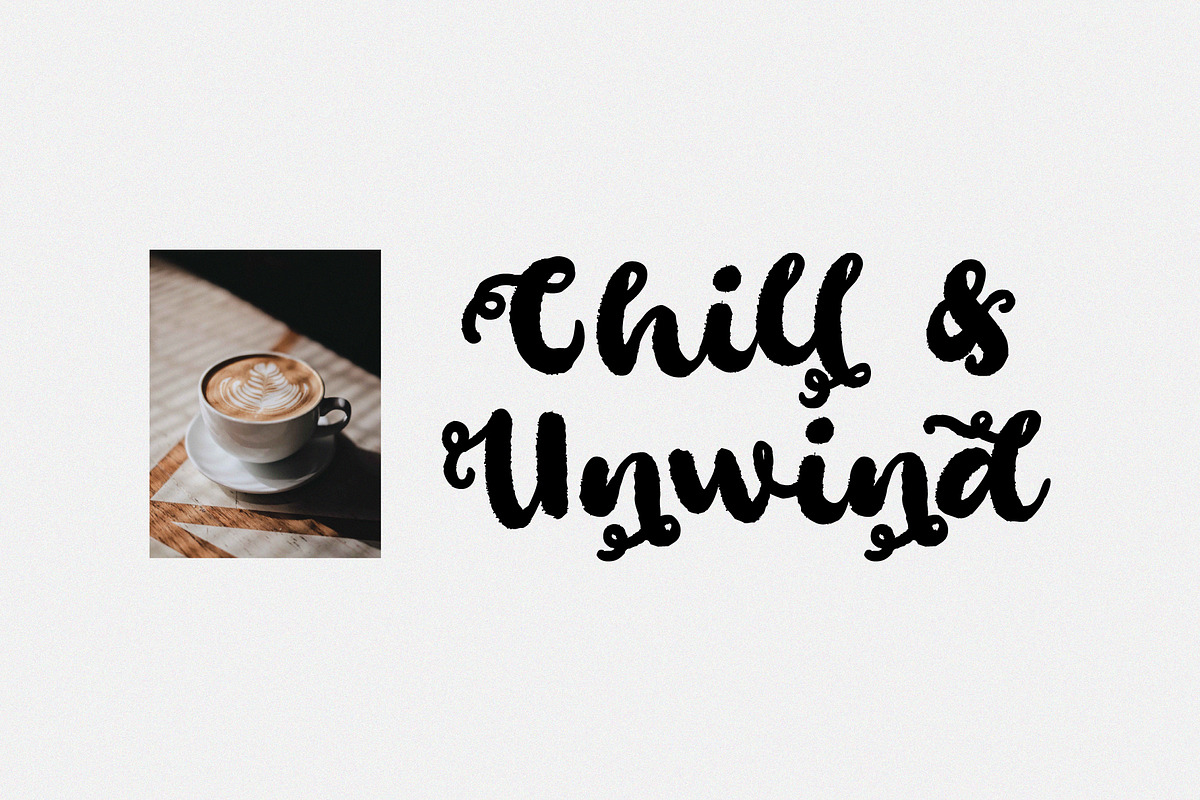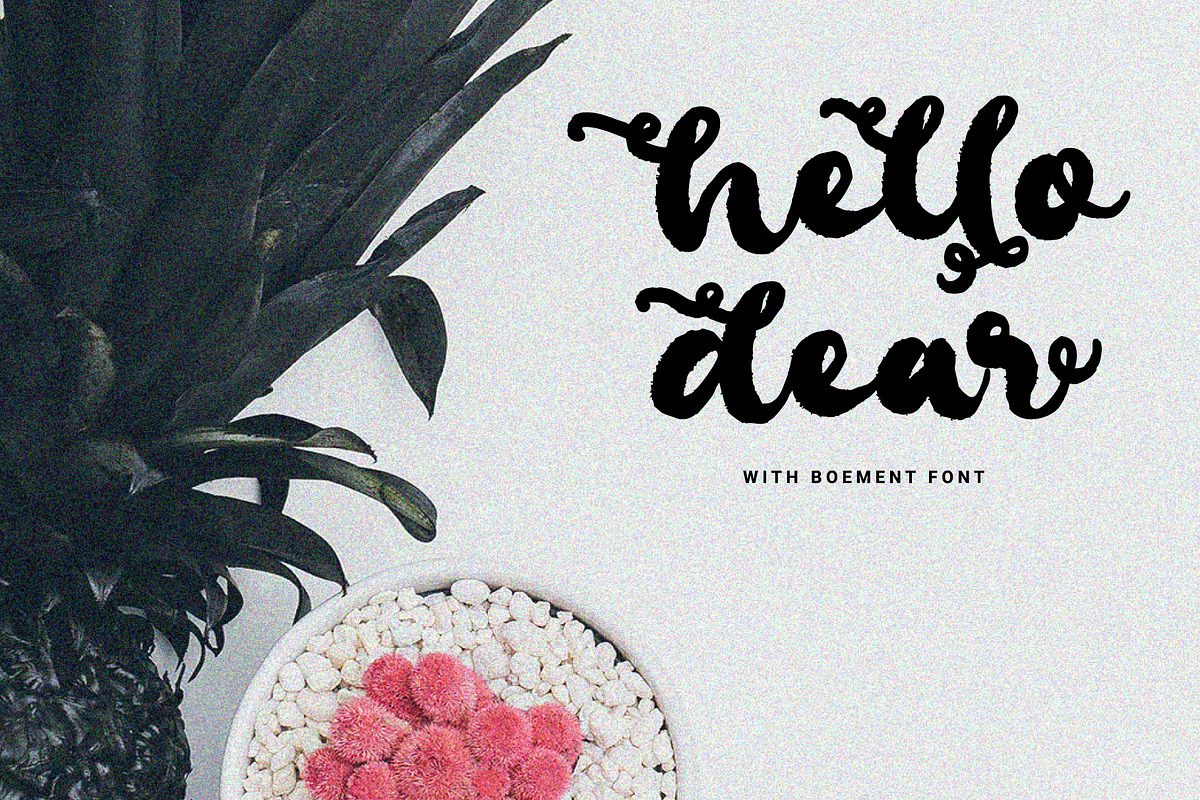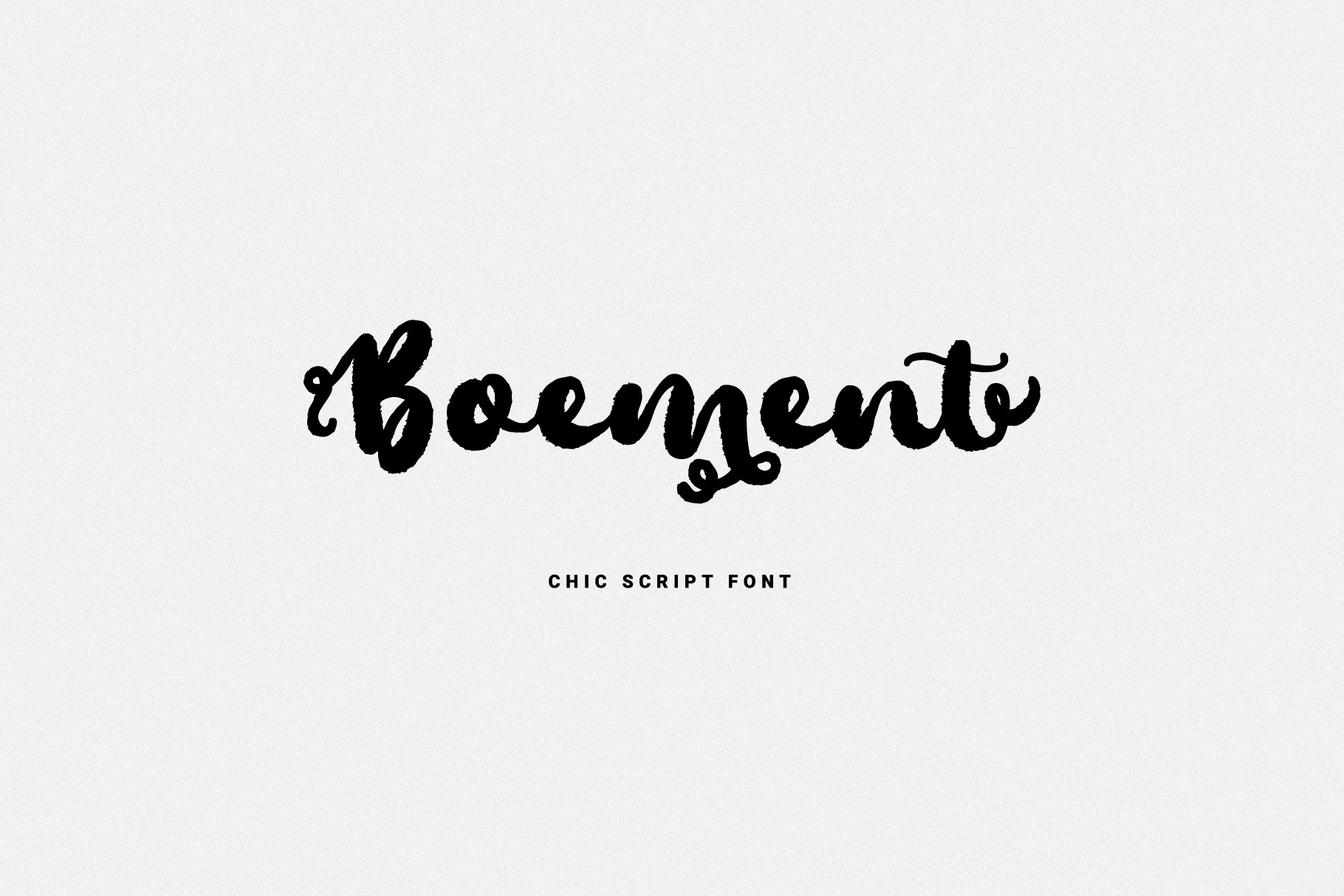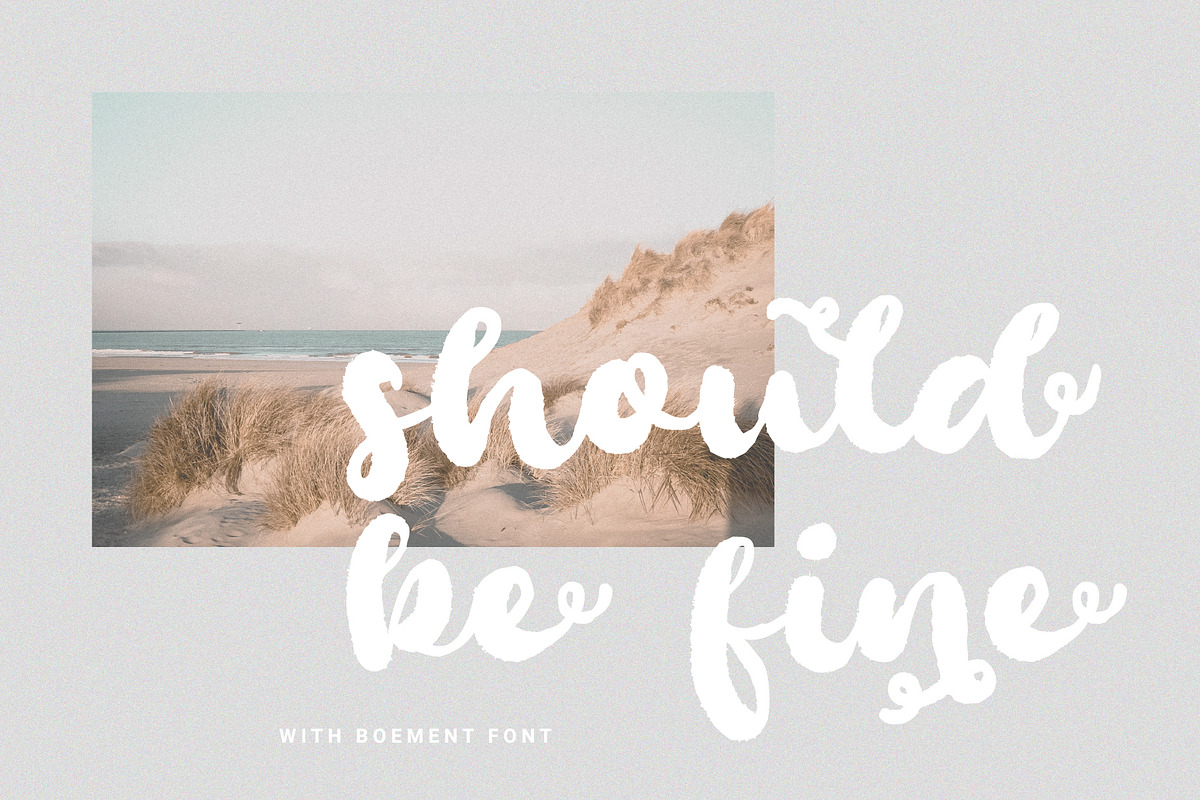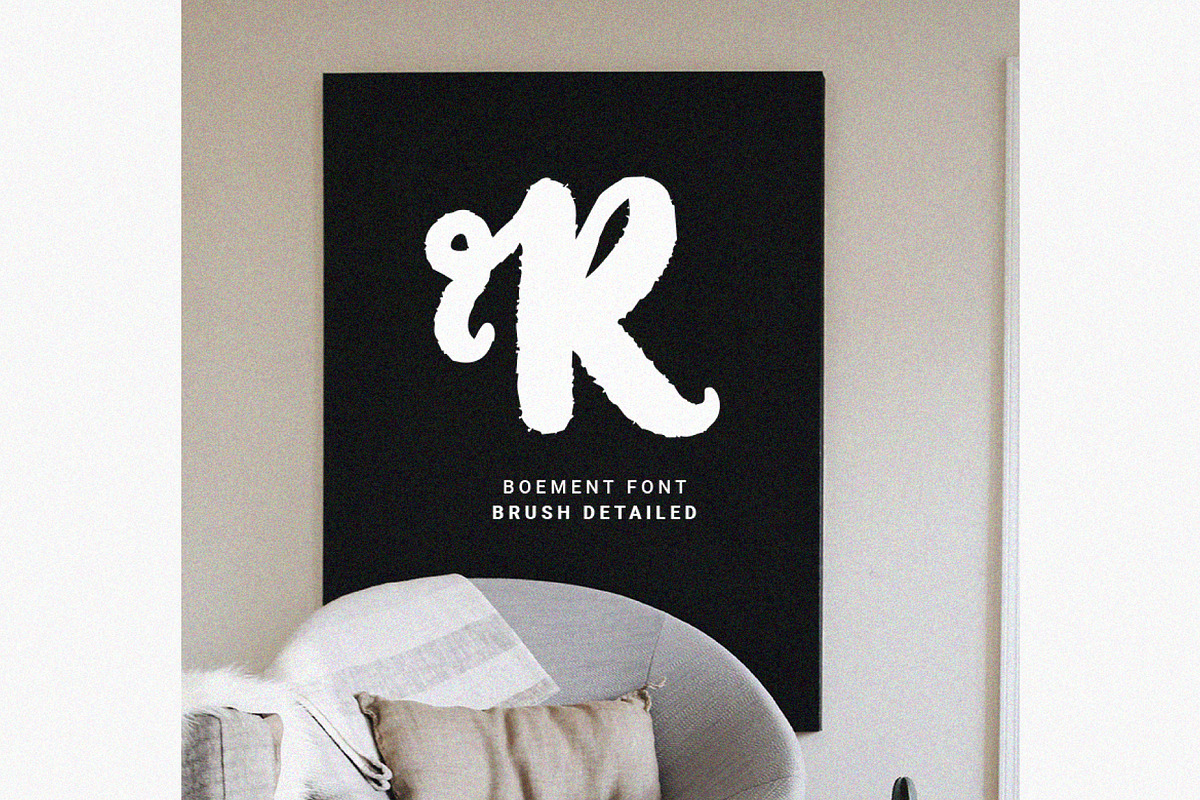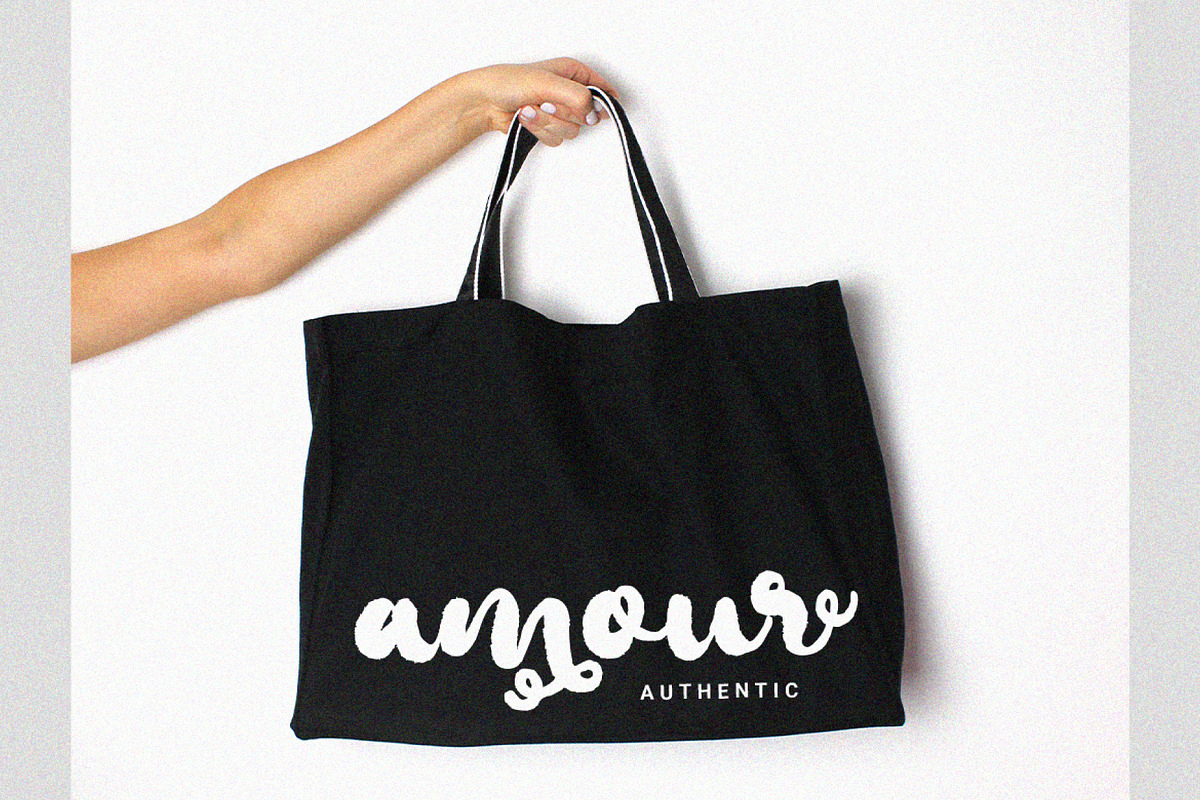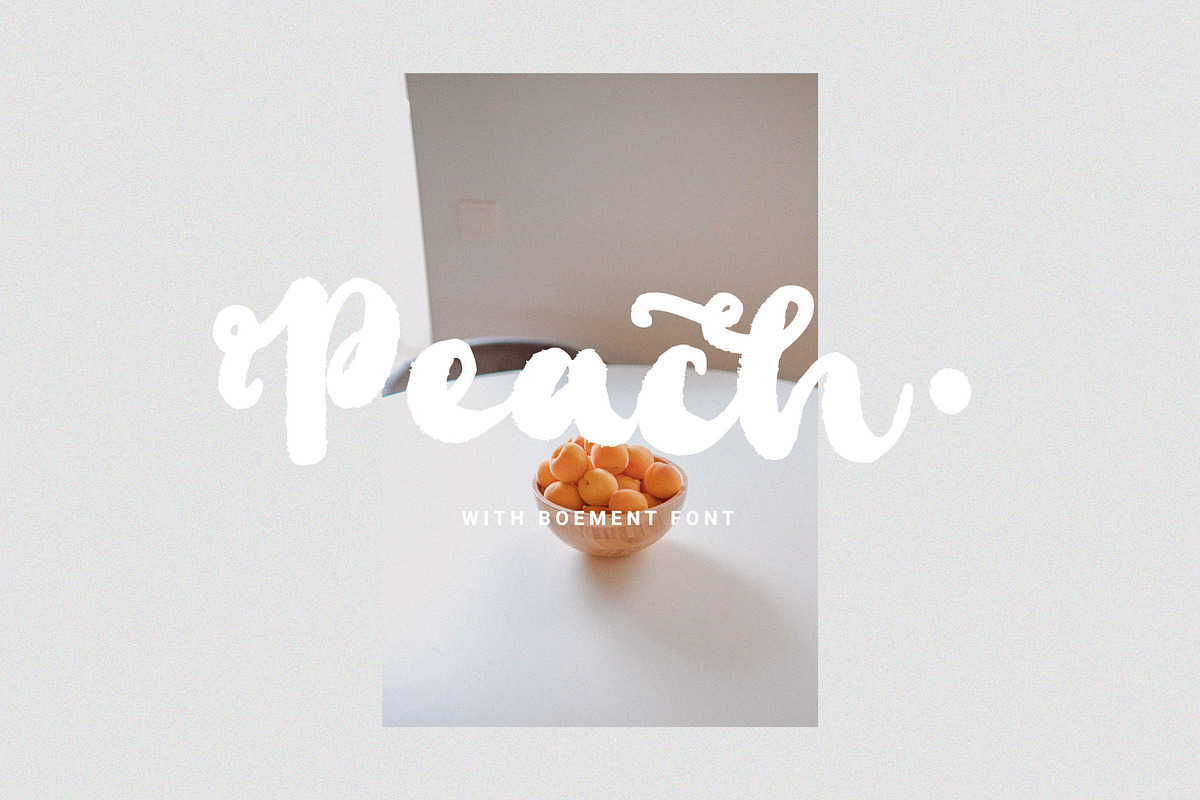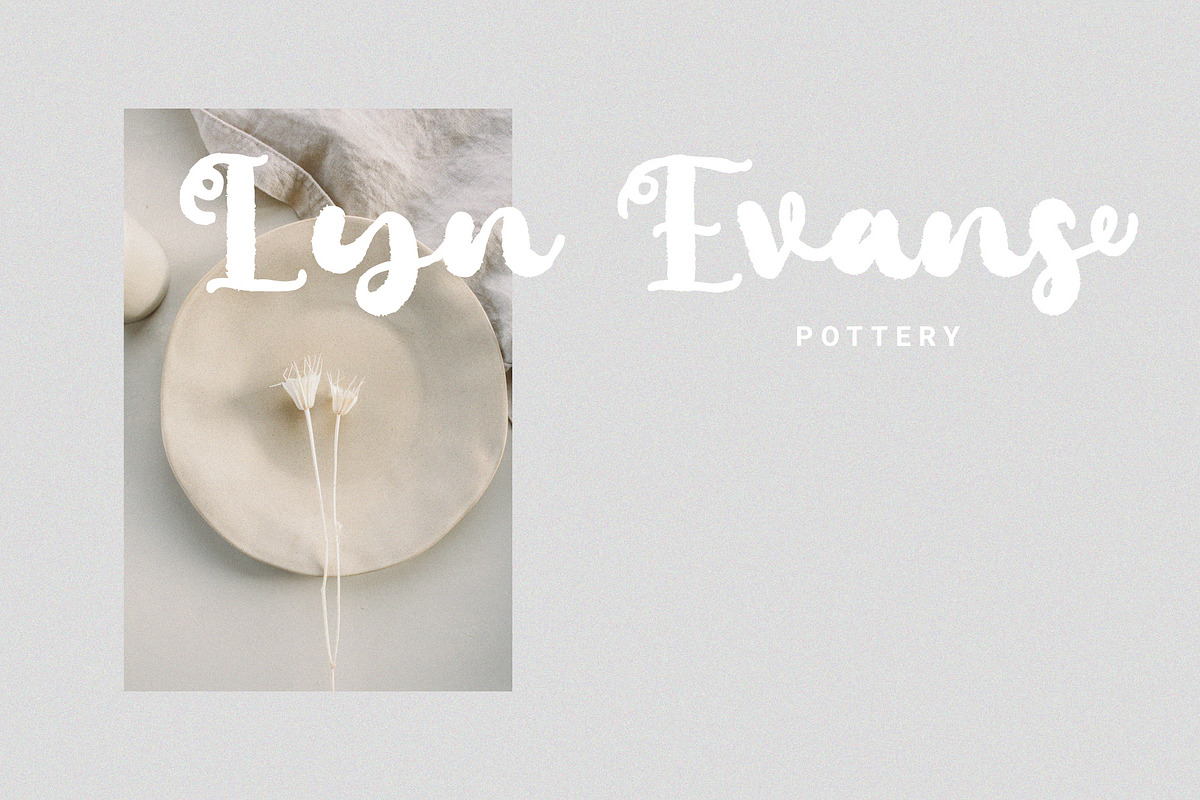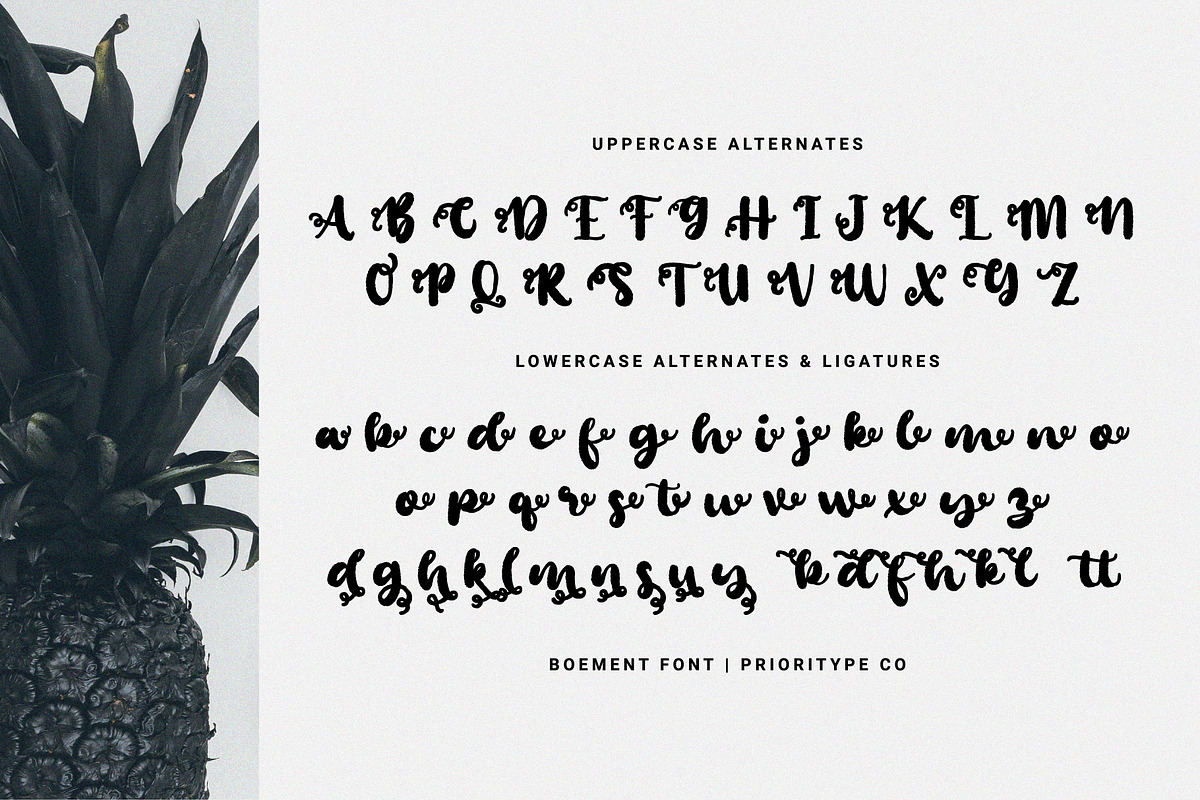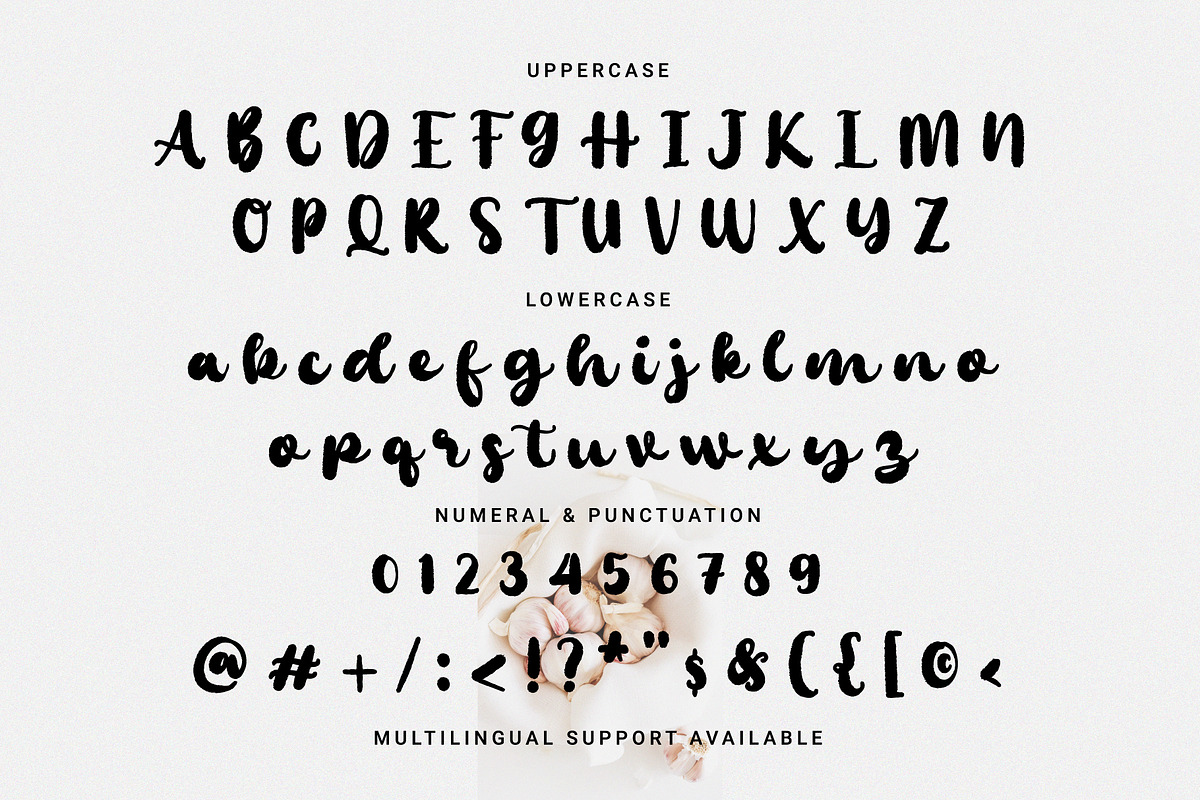
Boement - Chic Script Font
Boement - Chic Script Font.
Beautifully textured script fonts to complement and beautify your designs. With the additional alternative characters make it look richer. It is suitable for branding, logos, quotes, cover and so on.
- Features: Uppercase, Lowercase, Numeral, Punctuation, Multilingual, Ligatures & Alternates.
- Multilingual contained: Afrikaans, Albanian, Asu, Basque, Bemba, Bena, Breton, Catalan, Chiga, Cornish, Danish, Dutch, English, Estonian, Filipino, Finnish, French, Friulian, Galician, German, Gusii, Indonesian, Irish, Italian, Kabuverdianu, Kalenjin, Kinyarwanda, Luo, Luxembourgish, Luyia, Machame, Makhuwa-Meetto, Makonde, Malagasy, Manx, Morisyen, North Ndebele, Norwegian Bokmål, Norwegian Nynorsk, Nyankole, Oromo, Portuguese, Quechua, Romansh, Rombo, Rundi, Rwa, Samburu, Sango, Sangu, Scottish Gaelic, Sena, Shambala, Shona, Soga, Somali, Spanish, Swahili, Swedish, Swiss German, Taita, Teso, Uzbek (Latin), Volapük, Vunjo, Zulu.